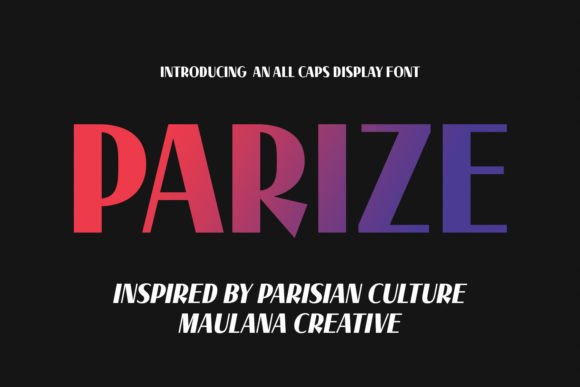
Welcome to the world of Parize Font, a captivating and unique display font carefully crafted by the talented Maulana Creative, designed to infuse your pet business with personality and charm. With its bold strokes and playful characters, Parize Font is the perfect choice for unleashing your creativity and leaving a lasting impression on your customers.
At first glance, Parize Font captivates with its bold and striking presence. The thick strokes command attention, making your brand impossible to ignore. Yet, beneath its boldness lies a touch of playfulness, achieved through the incorporation of ligatures and alternates. These subtle nuances add a dynamic element, ensuring your designs never fall flat.
Step into a world of endless possibilities with Parize Font. Its versatility knows no bounds, making it the perfect companion for a myriad of pet-related ventures. Whether you're crafting a captivating logo to represent your brand, designing social media posts that pop, or creating movie and book titles that leave a lasting impression, Parize Font rises to the challenge.
With Parize Font as your creative ally, you'll discover a world of design opportunities. Unleash your imagination and create posters that burst with energy, web designs that captivate, and branding materials that leave an unforgettable mark. Parize Font is the key to unlocking a world of visual delight.
As you delve deeper into the world of fonts, you'll discover that Parize Font stands out as an extraordinary creation. It's not just a font; it's an experience. A gateway to expressing your passion for pets in a way that resonates with your audience.
So, embark on this creative journey with Parize Font, and let your pet business flourish with a visual identity that speaks volumes. Its bold strokes and playful ligatures will leave an enduring impression, ensuring your brand shines brighter than ever before. Dive in today and unleash the boundless potential of Parize Font.